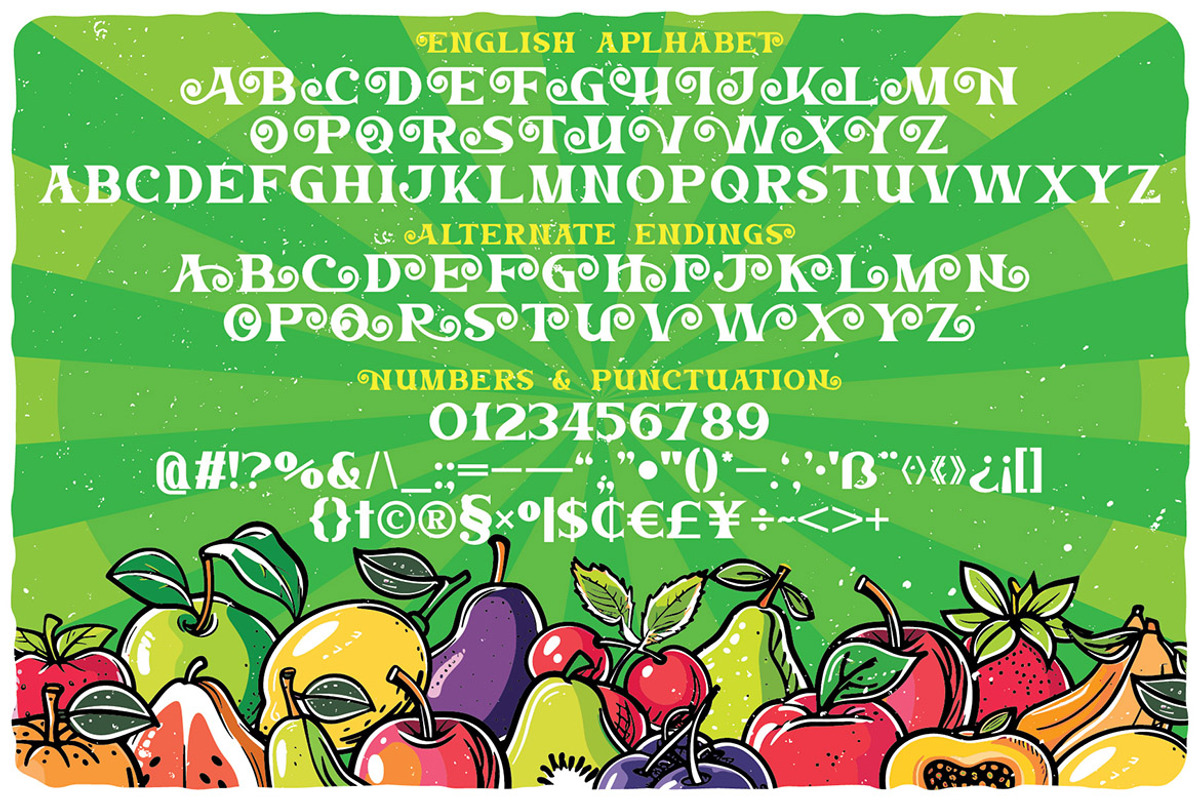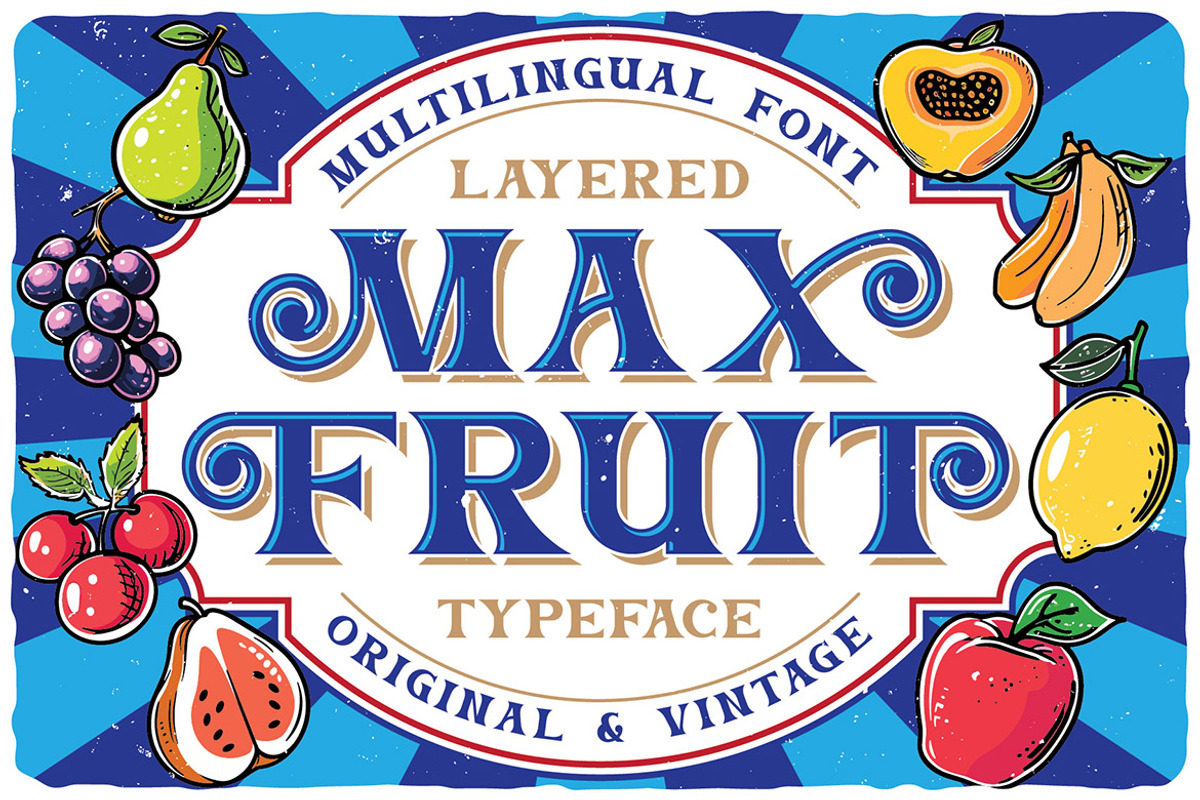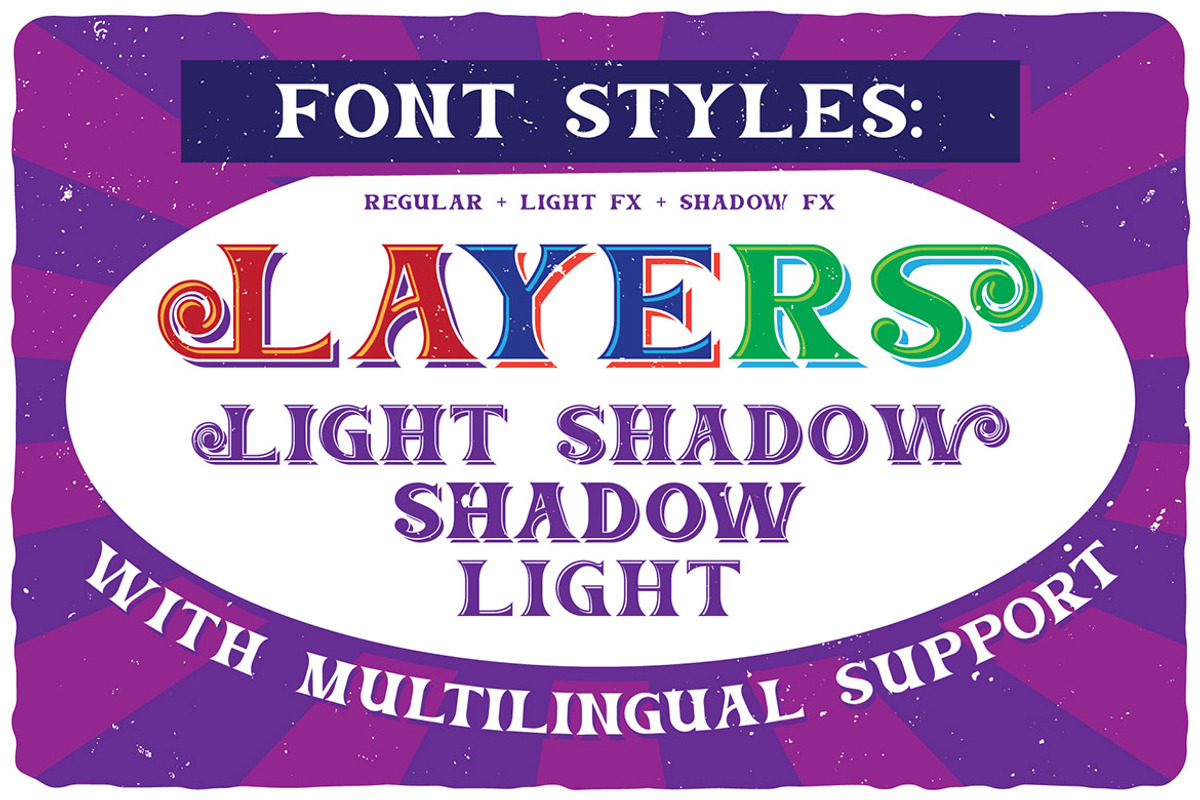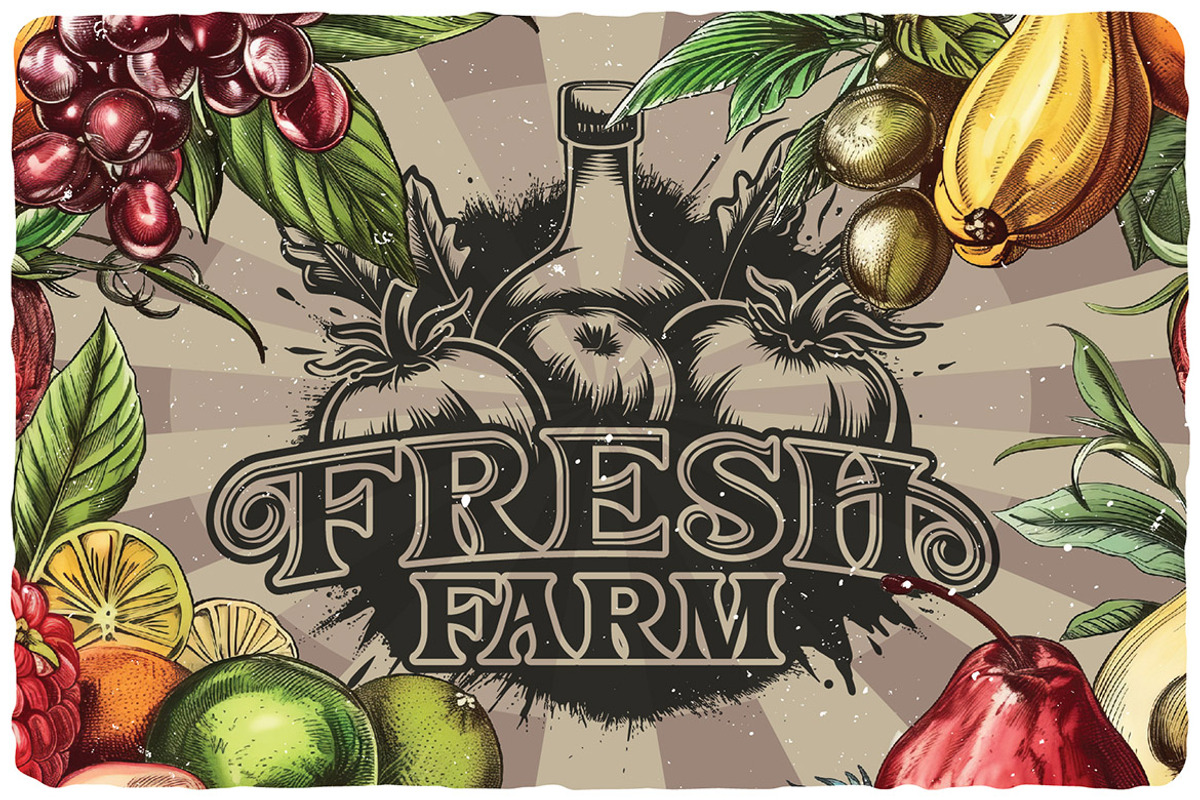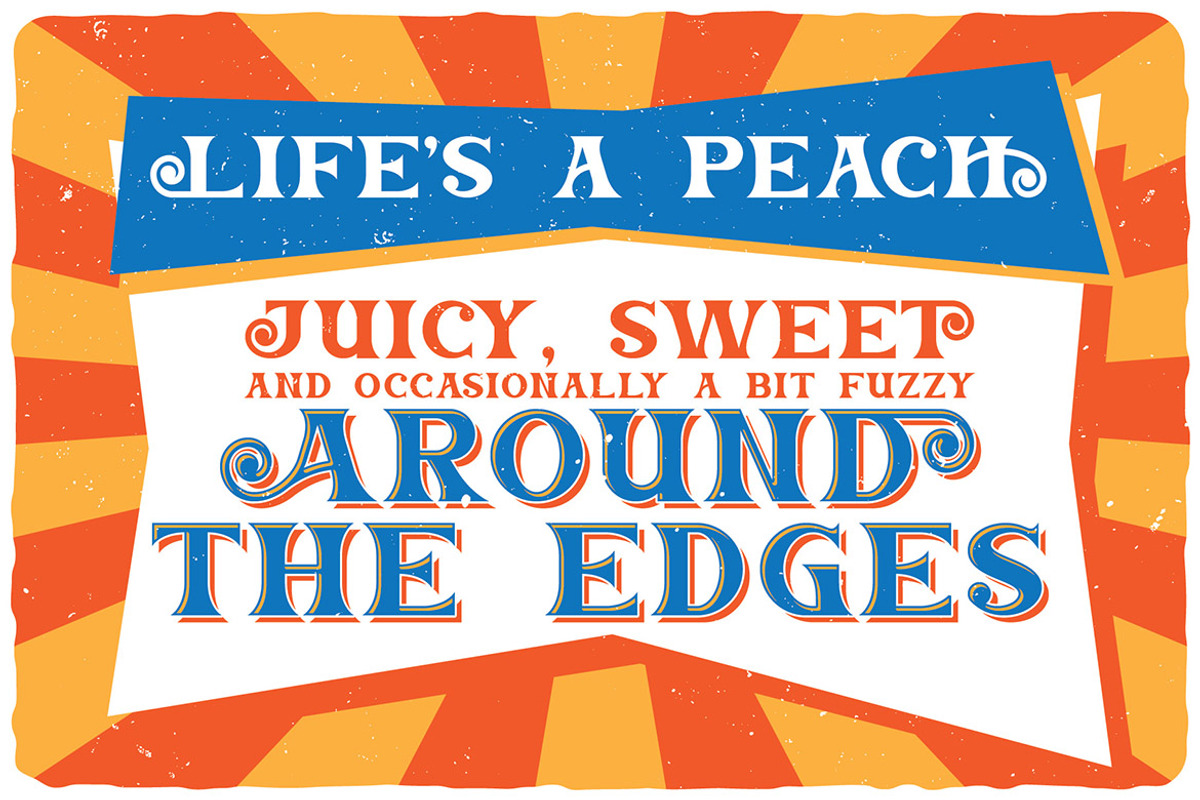
Max Fruit Bold Retro Font
Unique, playful, vintage, retro, wide & retro serif font. Comes with multilingual support & alternate characters - great for your new logo or branding project.
- 7 font styles
- Multilingual support & alternate characters
- Great for retro or rustic style branding projects